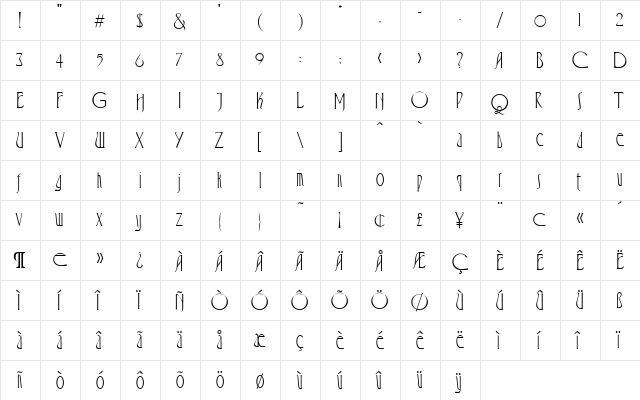
VirginRoman Regular Font Preview
VirginRoman Regular
VirginRoman Regular Font Details
| Foundry | by Panache Typography, |
Design Context for VirginRoman Typeface
VirginRoman is a composed and adaptable typeface that performs quietly and consistently across a wide range of design contexts.